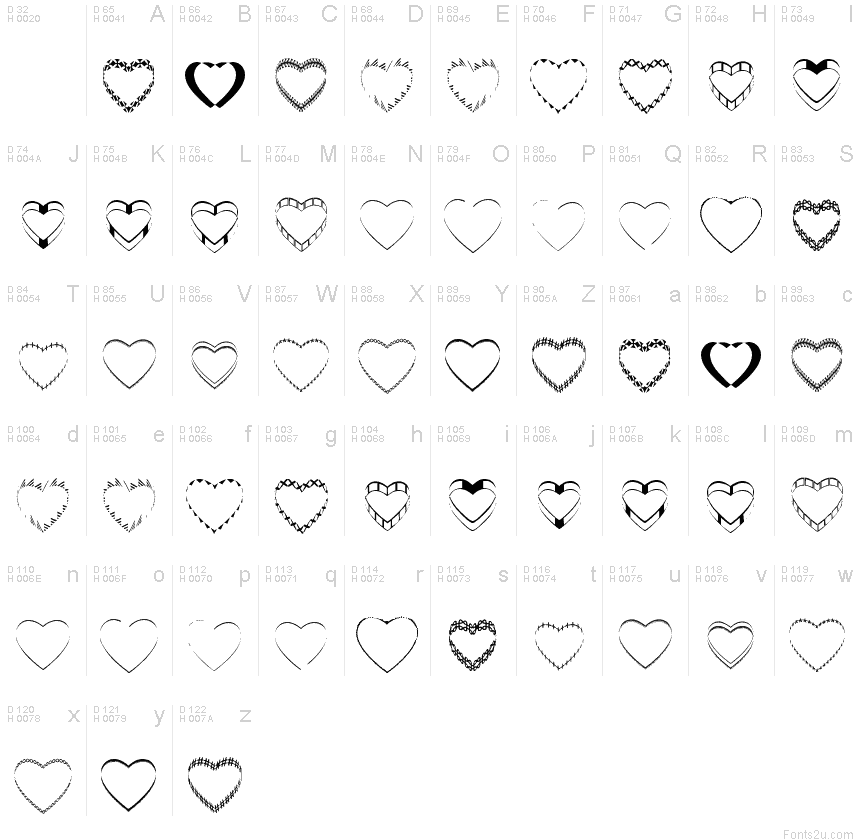
4YEOhearts
4YEOhearts font by 4yeo is a free dingbat font that turns a simple keystroke into a string of playful, romantic heart icons. From pixel-style checkerboard hearts to smooth, outlined shapes and tiny clustered motifs, each glyph feels like a ready-made decorative element. The mix of solid, hollow, and patterned hearts gives you both bold accents and lighter, airy touches, so you can build borders, dividers, and ornaments without drawing a thing.
Using 4YEOhearts, you can quickly dress up Valentine’s cards, wedding stationery, party invitations, social posts, stickers, or scrapbooking pages. The repeating heart chains work beautifully as edging on tickets or tags, while the single larger hearts make strong central marks or logos. For a clean, modern contrast, pair this free font’s icons with a simple sans serif text face and keep the hearts slightly larger than your body type for a charming, handmade feel.